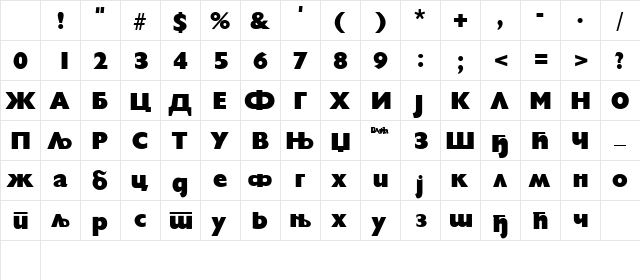
C_Herald Regular
Design Context for C_Herald
C_Herald is a composed and adaptable typeface that performs quietly and consistently across a wide range of design contexts.